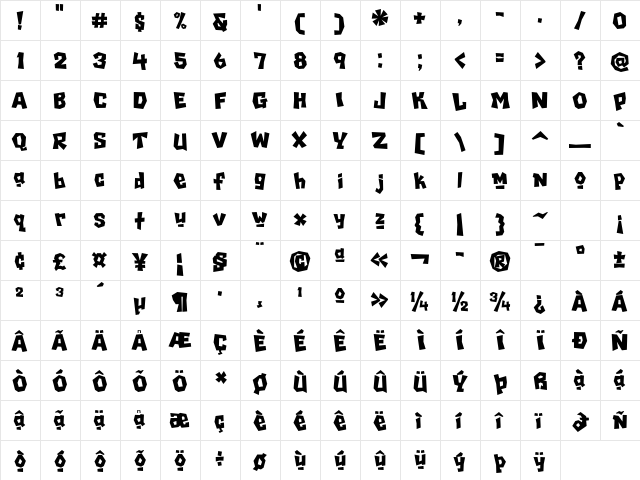
Chilada ICG Uno Regular
Design Context for Chilada ICG Uno Typeface
Chilada ICG Uno is a composed and adaptable typeface that performs quietly and consistently across a wide range of design contexts.